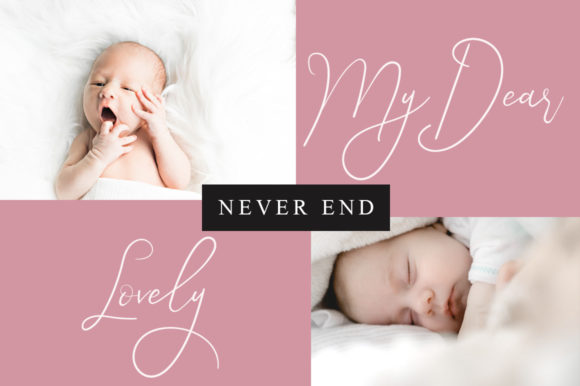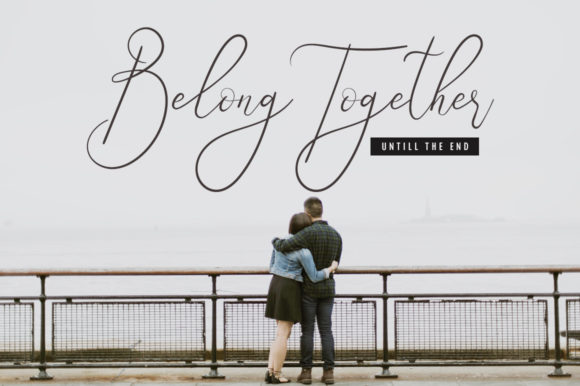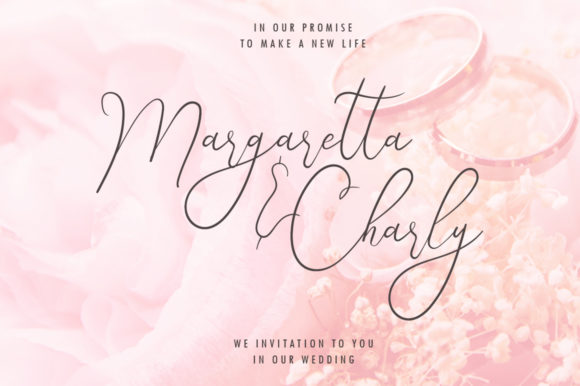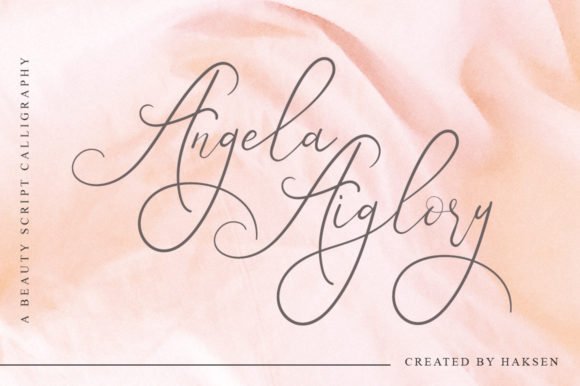
Introduction to Angela Aiglory Font
The Angela Aiglory is a beautiful calligraphy script.
It has a natural writing style and is perfect for greeting cards, branding materials, business cards, quotes, posters, and more .
Angela Aiglory Font offers exceptional quality and versatility, making it a valuable addition to your design toolkit. Whether you’re creating for personal projects or commercial use, Angela Aiglory Font delivers professional results.